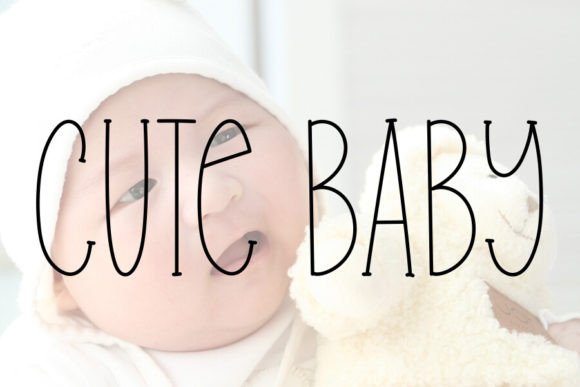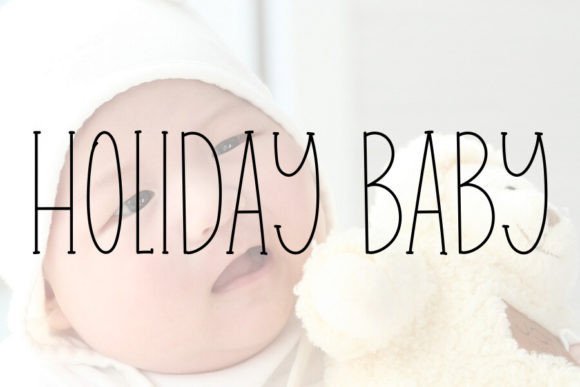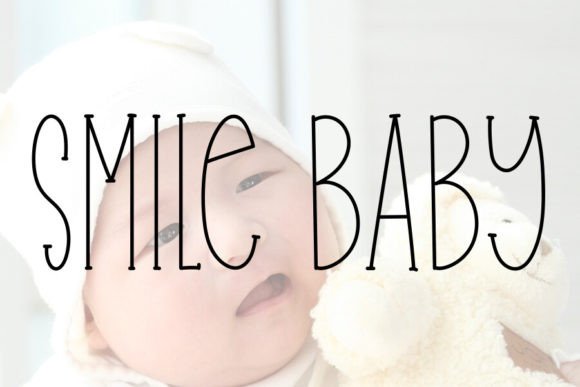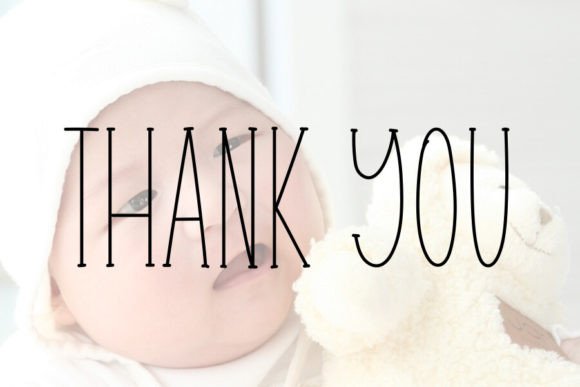
Adding a Touch of Whimsy to Your Designs
As a designer, there’s nothing quite like the thrill of seeing a project come together. You’ve poured your heart and soul into every detail, from the color palette to the typography. And then, it happens – you stumble upon the perfect font to tie everything together. For me, that font was the Baby Sister Font.
This sweet and beautiful handwritten font features characters that dance along the baseline, adding a cozy accent to any design project. Whether you’re creating a nursery decor collection or a wedding invitation suite, Baby Sister Font is sure to bring a touch of warmth and personality to your designs.
As a valuable addition to any designer’s toolkit, Baby Sister Font offers a unique blend of elegance and playfulness that’s hard to find in other fonts. Its versatility makes it a must-have for designers looking to add a little extra magic to their projects.
Baby Sister Font Key Features
- Font Style: Script, Casual
- Language Support: Supports Latin, Cyrillic, and Greek alphabets
- Unique Characteristics: Hand-drawn, elegant, and whimsical design, perfect for feminine and children’s products
Baby Sister Font Review
Overall, I’d say the Baby Sister Font is a sweet, playful addition to any project. ✨ Its rounded edges and soft curves give it a gentle, childlike feel that’s perfect for kids’ books, nursery decor, or any other design that needs a touch of whimsy.
Here are some of the things that work well:
- Highly legible, even at smaller font sizes ✨
- Wide range of customization options, including color and font weight ✨
- May not be suitable for formal or professional projects, as its playful feel can come across as immature ⚠️
- Can be a bit too “cute” for some tastes, which may not appeal to designers looking for a more subtle font ⚠️
- Not as versatile as some other fonts, which may limit its use in certain design contexts ⚠️
Overall, I’d say the Baby Sister Font is a solid choice for designers looking for a playful, childlike feel. While it may not be suitable for every project, it’s a great option for kids’ design, nursery decor, and other projects that need a touch of whimsy.
Tips for Getting the Most Out of Baby Sister Font
Use Baby Sister Font for:
- Children’s party invitations and decorations.
- Family photo albums and scrapbooks.
- Creative projects that require a playful, whimsical touch.
Experiment with different font sizes and styles to add visual interest to your project.